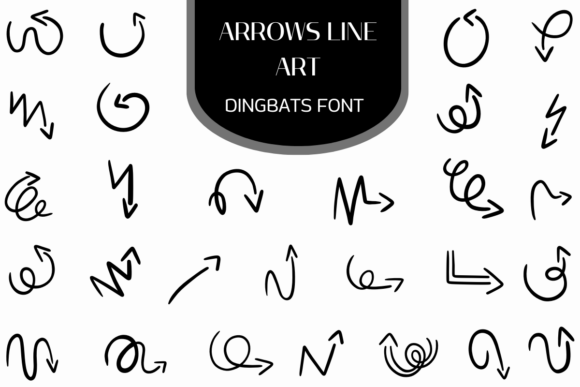
The Power of Arrows Line Art Font: Unlocking Creative Potential
I’ll never forget the time I was working on a project for a client who needed a custom illustration that incorporated arrows in a creative way. I scoured the internet for the perfect font, but nothing seemed quite right. That was until I stumbled upon Arrows Line Art Font. This adorable dingbats font has since become a staple in my design toolkit, and I’m excited to share its awesomeness with you! 😊
- ✨ Cute and playful design: Arrows Line Art Font is perfect for adding a touch of whimsy to your designs.
- ✅ Ease of use: This font is incredibly easy to use, even for those who are new to working with dingbats fonts.
- 💡 Versatility: From illustrations to icons, Arrows Line Art Font can be used in a wide range of creative projects.
While Arrows Line Art Font is an amazing addition to any design project, there are a few things to keep in mind. 🤔 For example:
- ⚠️ Limited character set: As a dingbats font, Arrows Line Art Font has a limited character set, which may not be suitable for projects that require a wide range of text.
- ⚠️ May not be suitable for body text: Due to its playful design, Arrows Line Art Font is best used for headings, icons, or illustrations, rather than body text.
Arrows Line Art Font was inspired by the playful and creative world of line art illustrations. The designer wanted to create a font that would allow users to add a touch of whimsy to their designs, without sacrificing readability. The result is a font that’s both functional and beautiful.
Q: What type of projects is Arrows Line Art Font best suited for?
A: Arrows Line Art Font is perfect for illustrations, icons, and creative projects that require a playful touch.
Q: Is Arrows Line Art Font suitable for body text?
A: No, Arrows Line Art Font is best used for headings, icons, or illustrations, rather than body text.